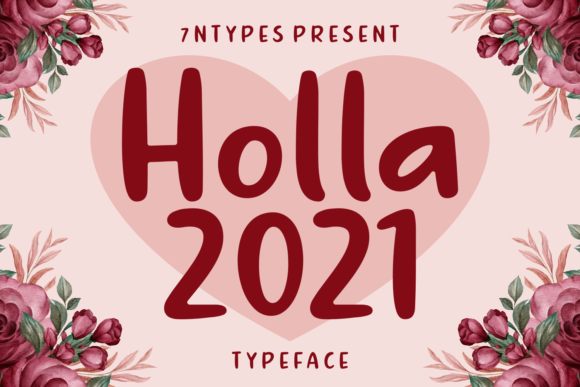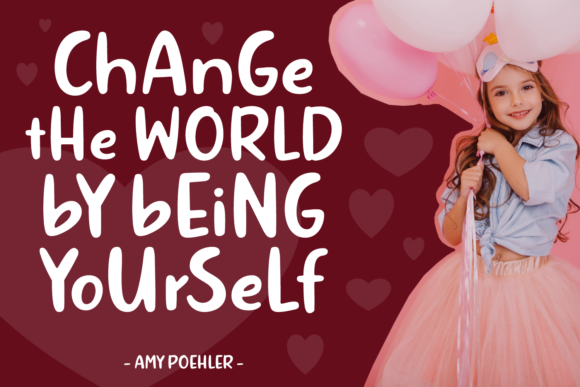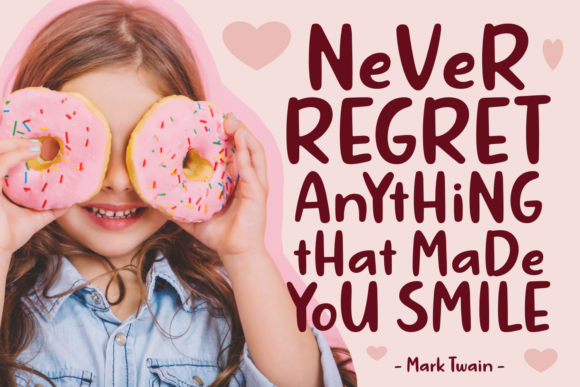
Discover the Joy of Hand-Drawn Typography with Holla 2021 Font
Remember that moment when you stumbled upon the perfect font to bring your creative project to life? The one that made you feel like a kid in a candy store, eager to experiment and see what amazing things you could create? For designers and crafty individuals, finding the right font can be a game-changer. And, trust us, we’ve got just the thing – the delightful Holla 2021 Font.
This charming paint brushed handwritten font is a breath of fresh air for any design project. With its original look and feel, Holla 2021 Font is perfect for adding a personal touch to letterheads, titles, stationery, and more. Whether you’re working on a professional project or a fun DIY craft, this font is sure to bring a smile to your face and inspire your creativity.
- Unique Characteristics: Distinctive, modern sans-serif design with a unique twist on traditional typography
Holla 2021 Font Review
I recently had the chance to work with the Holla 2021 font, and I must say it’s a unique addition to any design project. Here are some of its standout features: ✨
- Its bold and playful personality shines through in its letterforms, making it perfect for headings and titles.
- The font’s versatility allows it to work well in a variety of contexts, from digital displays to print materials.
- The font may be too bold and overpowering for some projects, so be sure to use it judiciously.
- The font’s OpenType features can be a bit finicky, leading to some inconsistencies in display.
Overall, I’d say the Holla 2021 font is a great choice for designers looking for a bold and eye-catching font. While it may not be perfect, its unique personality and versatility make it a great addition to any design project. Just be sure to use it thoughtfully and be aware of its limitations.
The Holla 2021 Font is a bold and playful font, making it perfect for:
- Party invitations and event materials.
- Summer-themed designs and graphics.
- Quirky and fun social media posts.
Remember to use the font in moderation to avoid overwhelming your design.